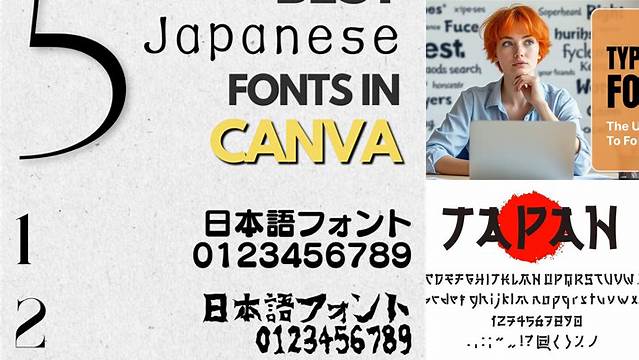
Explore Japanese Fonts: Your Ultimate Guide
Hey there, font fanatics! Ever found yourself captivated by the elegant strokes of Japanese characters? Or maybe you're a designer looking to infuse a bit of Japan into your project? Well, you've come to the right place! We're diving headfirst into the wonderful world of https www 1001fonts com japanese fonts html, and trust me, it's a rabbit hole worth exploring. This guide will be your trusty compass, leading you through the diverse landscape of Japanese fonts, from their historical roots to their modern-day applications. We'll uncover the different font styles, how to find the perfect one for your needs, and even give you some tips on using them effectively. Get ready to unleash your creativity and add a touch of Japan to your designs. So, buckle up, grab a cup of matcha (or your favorite beverage), and let's embark on this font-tastic journey!
Understanding Japanese Typography: A Deep Dive
Alright, guys, let's start with the basics. https www 1001fonts com japanese fonts html aren't just pretty characters; they're a whole different ball game compared to our familiar Latin alphabet. Japanese typography is a complex art form, steeped in history and tradition. It's not just about the visual appeal; it's about conveying meaning, emotion, and the essence of Japanese culture. Understanding the nuances of Japanese typography is crucial to using these fonts effectively. This includes grasping the different writing systems: Hiragana, Katakana, and Kanji. Each system has its own purpose and aesthetic, and using them correctly can significantly impact the overall feel of your design. Remember, Japanese fonts are not just fonts; they are a visual language, carrying centuries of cultural weight. It's a different way of thinking about design, where the choice of font is more than just aesthetics, it's a way to communicate the essence of Japan. The right font can transport your audience to the heart of Tokyo, while the wrong one might leave them feeling a bit lost in translation. From the elegant flow of calligraphic fonts to the bold strokes of modern typefaces, each font tells its own story, adding layers of depth and meaning to your work. Getting to know these fundamentals is a good way to better explore https www 1001fonts com japanese fonts html and the myriad of options available.
The Three Pillars: Hiragana, Katakana, and Kanji
Let's break down those writing systems, shall we? Hiragana is the cursive, flowing script, often used for native Japanese words and grammatical elements. Think of it as the softer, more approachable side of Japanese writing. Katakana, on the other hand, is angular and used for foreign words and emphasis. It's the louder, more attention-grabbing sibling. Then there's Kanji, the adopted Chinese characters that represent whole words or concepts. Kanji is the most complex of the three, boasting thousands of characters. Choosing the right mix of these three is key to readability and visual harmony. Different fonts emphasize different aspects of these systems, so consider what message you're trying to send.
The Art of Vertical and Horizontal Writing
One thing that sets Japanese typography apart is its flexibility with direction. You can write vertically, top to bottom, or horizontally, left to right. This adds a layer of complexity and creativity to your design. Some fonts are better suited for vertical writing, while others shine in horizontal layouts. Knowing these preferences can make a huge difference in the impact of your design. Experimenting with vertical and horizontal writing can add visual interest and enhance the overall experience for your audience. Keep in mind your target audience and their familiarity with Japanese writing when making your choice. Don't be afraid to play around, try different orientations, and see what fits your style best!
Exploring Font Styles: From Traditional to Modern
Now, let's get to the fun part: the fonts themselves! https www 1001fonts com japanese fonts html offers a wide range of font styles, each with its own personality. From classic calligraphy to modern digital fonts, there's something for everyone. Each style carries with it a certain vibe, and selecting the right one can completely transform the feel of your project. We'll cover some popular styles, so you can start identifying the fonts that best match your creative vision.
Mincho Fonts: The Elegant Standard
Mincho fonts are the workhorses of Japanese typography. They're elegant, readable, and often used in books, newspapers, and formal documents. Think of them as the Helvetica of Japan. With their refined strokes and serifs, Mincho fonts convey a sense of tradition and professionalism. They are known for their balance and clarity, making them ideal for body text. When you want something that's both beautiful and easy to read, Mincho is a safe bet. The careful balance of strokes and the distinct serifs make them a favorite among designers. Many designers find Mincho fonts indispensable, appreciating their classic and adaptable design.
Gothic Fonts: Bold and Modern
Got this style? Gothic fonts, on the other hand, are bolder and more modern. These fonts typically have a more uniform stroke width and are often used for headlines and display text. They are the go-to for capturing attention and creating a contemporary feel. They're perfect when you want to make a statement. Gothic fonts, with their clean lines and strong presence, are excellent for headlines, posters, and any design where you want to make a bold statement. They project a sense of modernism and are easily readable, even at a distance. If you're going for a more straightforward and impactful design, Gothic is the path.
Brush Script Fonts: The Artistic Touch
Brush script fonts, mirroring the strokes of a brush, add a personal and artistic touch. They are great for invitations, logos, and anything that calls for a handwritten feel. They exude creativity, adding a unique and stylish feel to any project. Brush script fonts have the power to bring a personal, human touch. They mimic the elegance of calligraphy and create a feeling of warmth. These fonts are often chosen for invitations, branding, and designs aiming to convey personality and creativity. They add a layer of artistry that few other font styles can match.
Finding Japanese Fonts: Your Go-To Resources
Okay, so you're ready to find some fonts, right? https www 1001fonts com japanese fonts html offers plenty of choices, but knowing where to look can make a world of difference. There are many websites and resources dedicated to Japanese fonts, but finding the right font can feel overwhelming. We'll walk you through some of the best places to find Japanese fonts, both free and paid, and give you some tips on how to navigate your way through the selection process.
Navigating Font Websites
Websites like 1001fonts.com are a goldmine for Japanese fonts. They offer a variety of fonts, often with search and filter options. To successfully navigate these sites, keep these tips in mind: Filter by style, license, and character set to narrow your search. Always check the license before downloading the font to ensure you can use it for your intended purpose. Download multiple fonts to have options. Preview the font in your design before making your final choice. Use keywords like “Japanese,” “Kanji,” or specific style names to refine your search.
Conclusion: Unleash Your Creativity with Japanese Fonts!
So, there you have it! You're now equipped with the knowledge to explore the world of https www 1001fonts com japanese fonts html and beyond. Japanese fonts offer a world of creative possibilities. Embrace the beauty and elegance of Japanese typography, and let your creativity flourish! Now go forth and create! You can use Japanese fonts for stunning and amazing designs. Experiment with them to unlock your creative potential. The world of Japanese fonts is filled with design opportunities. Unlock your design potential and create stunning visuals. Your designs can reach the next level. Now, get creative and have fun!